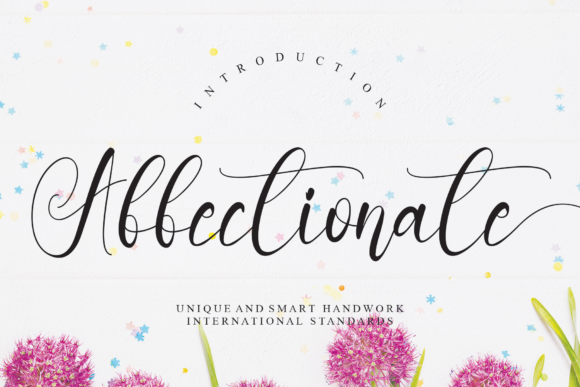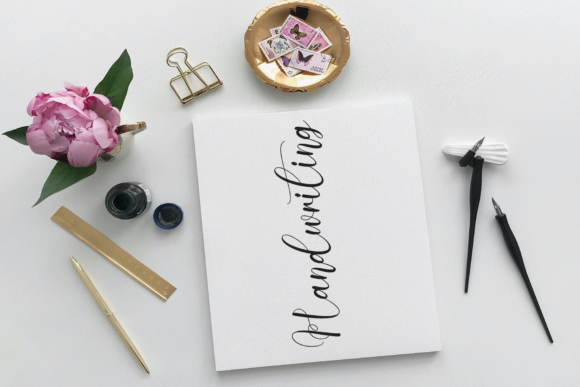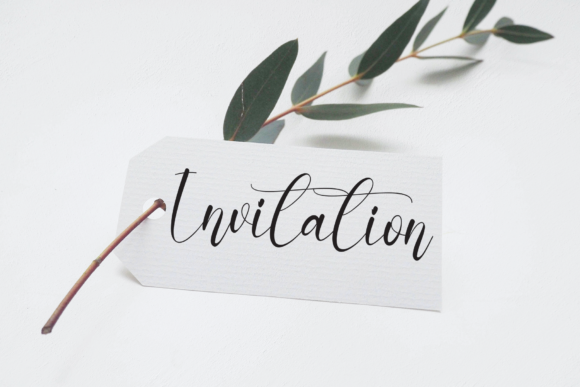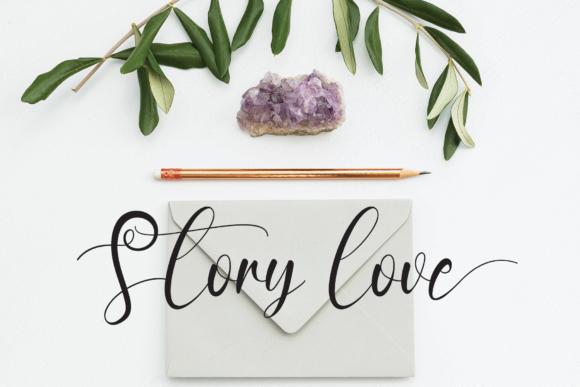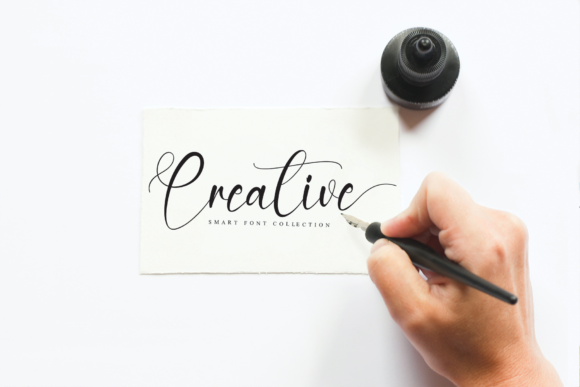
Affectionate Font
About Affectionate Font
Affectionate is a chic and whimsical handwritten font. It has a modern and unique style and it will undoubtedly immerse your designs into a magical world.